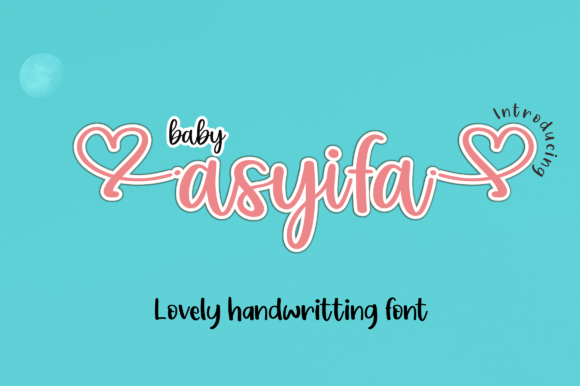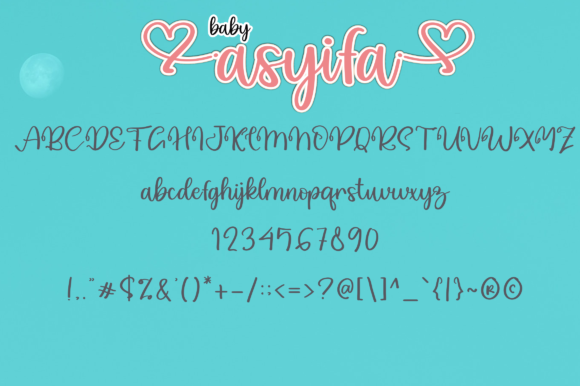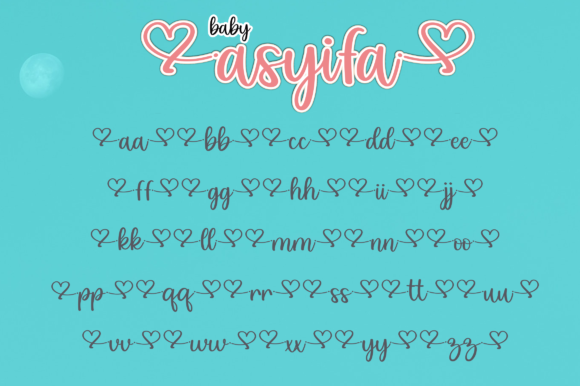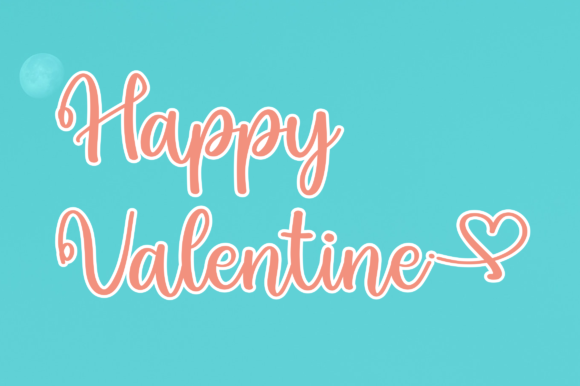
About Baby Asyifa Font
Baby Asyifa is a distinct graceful script font. This font is PUA encoded which means you can access all glyphs and swashes with ease! It will elevate a wide range of crafting ideas, from cards, to branding, labels and much more.